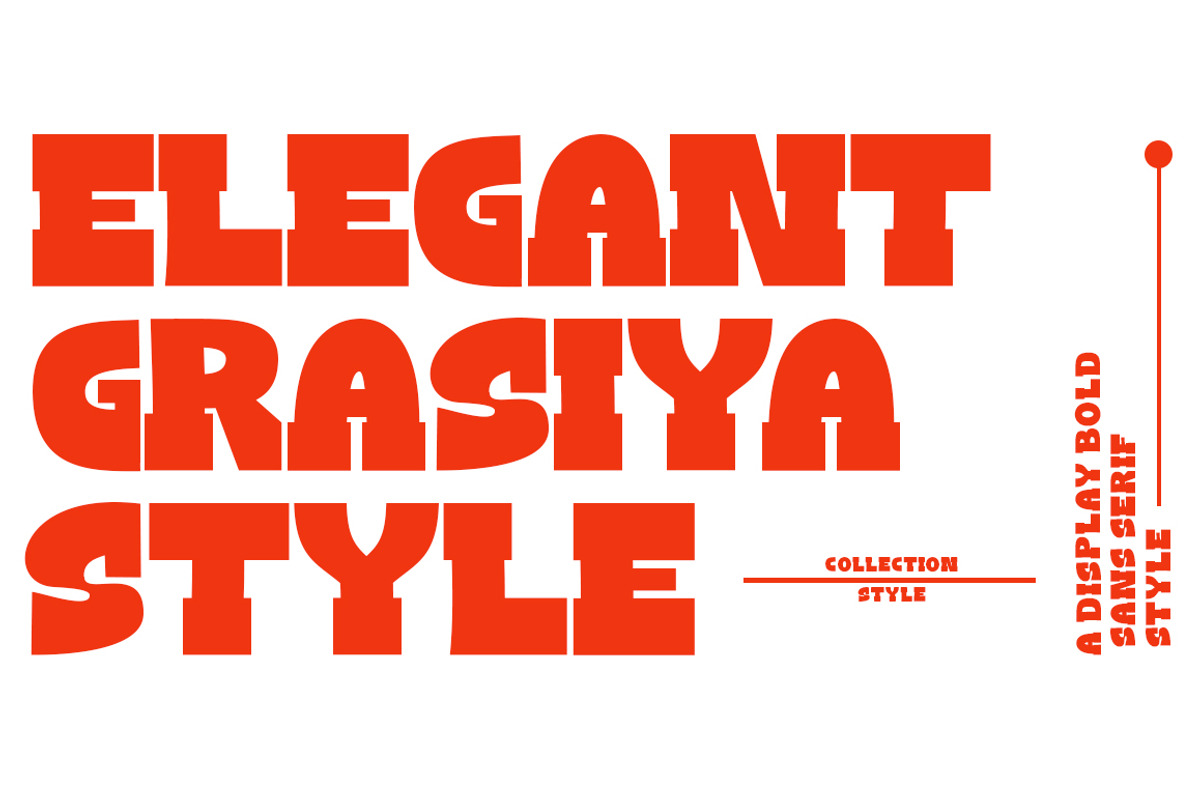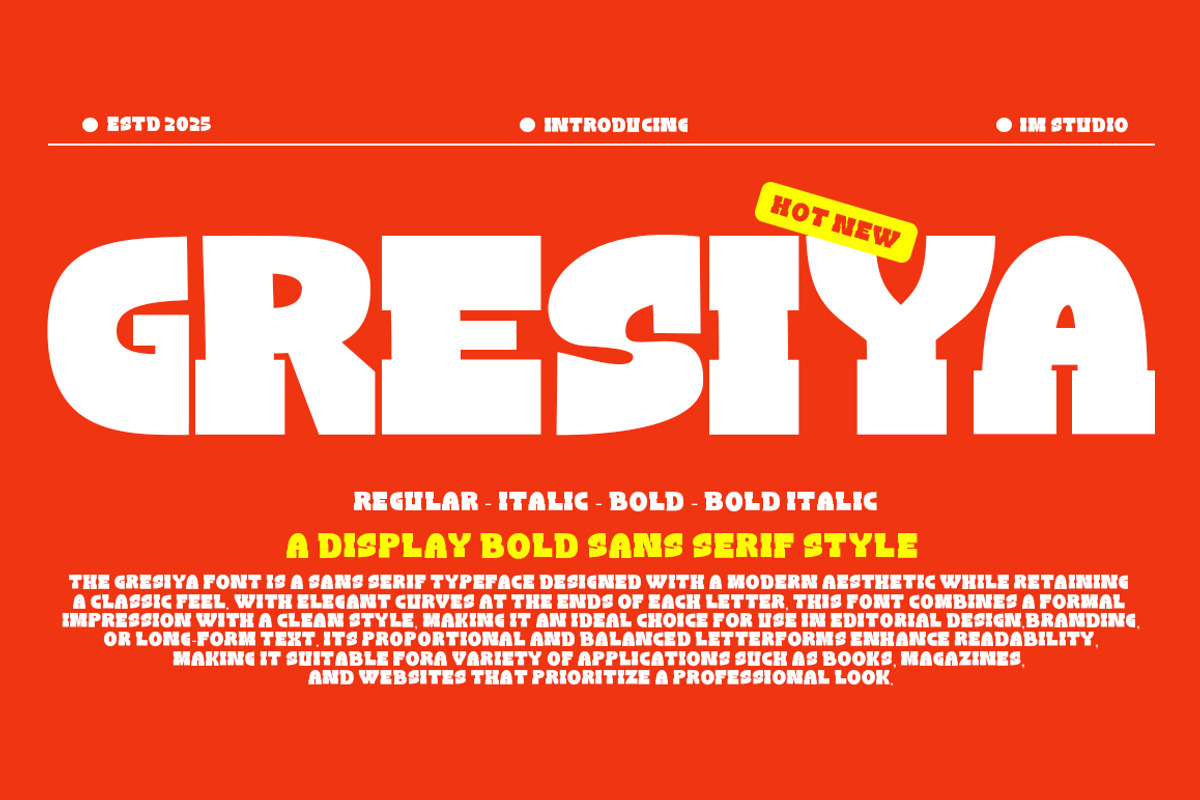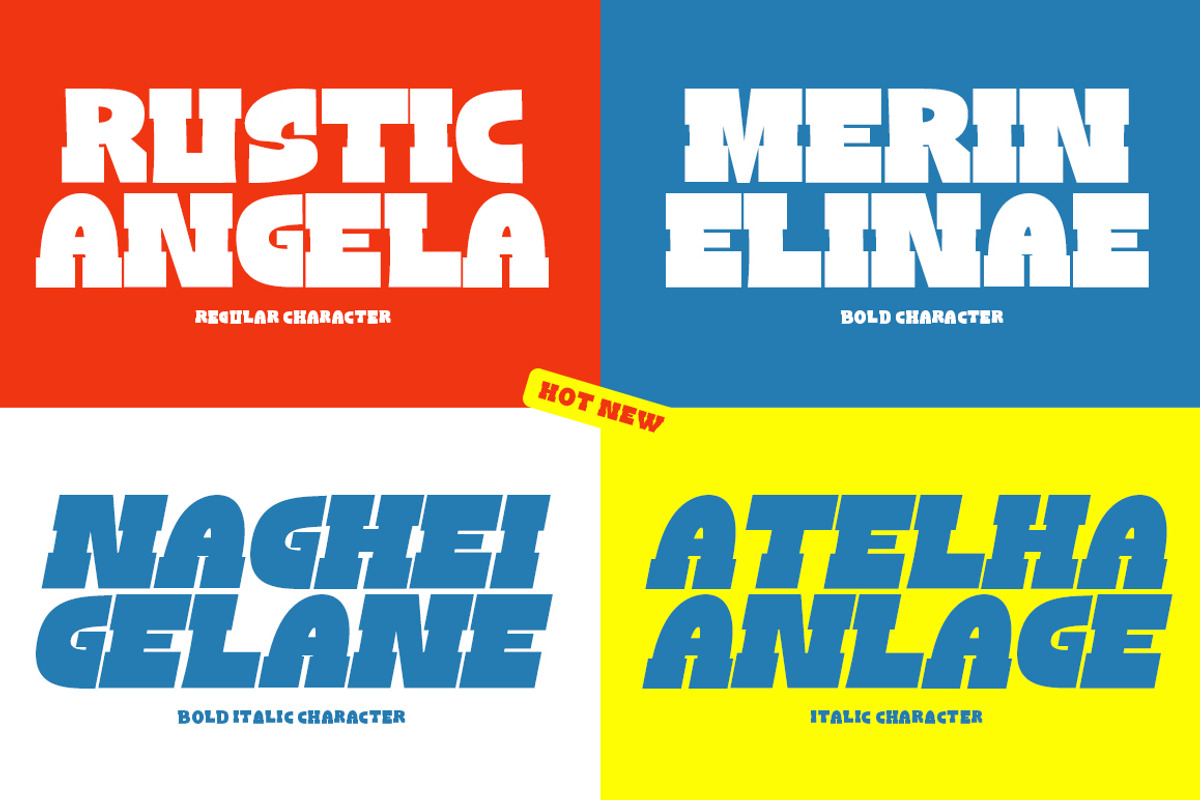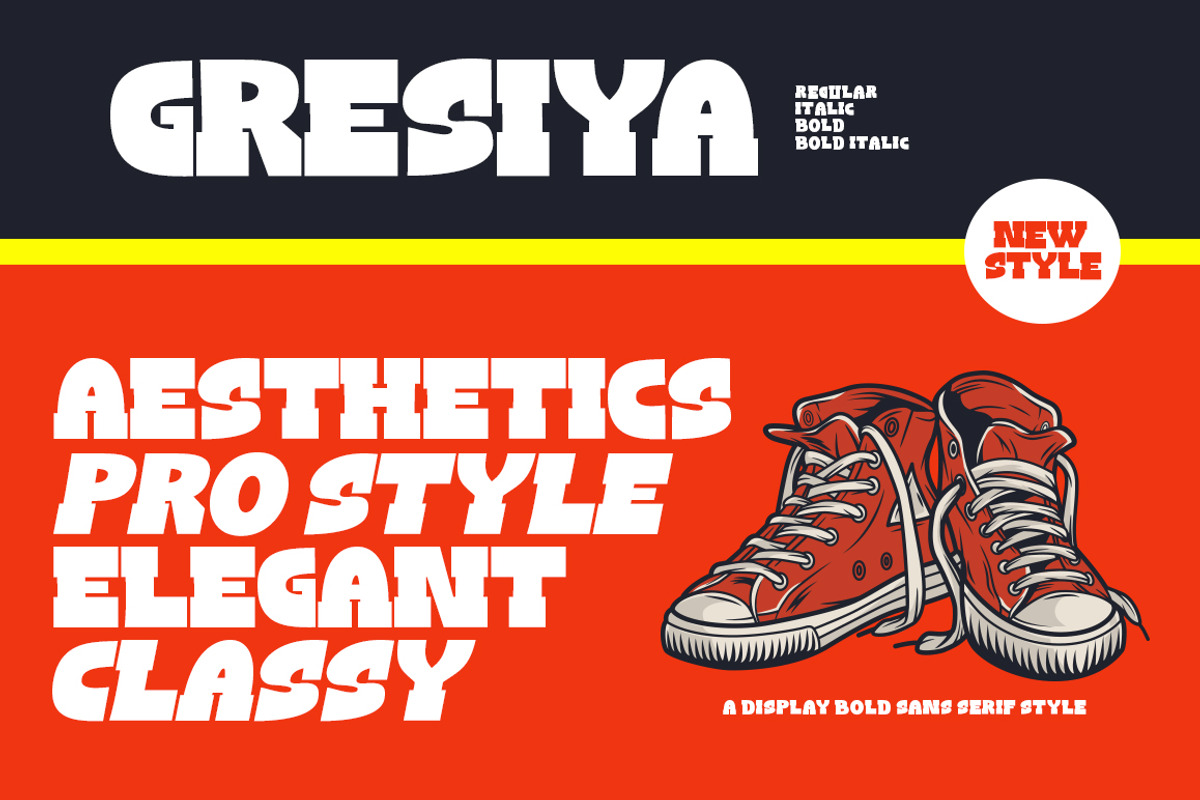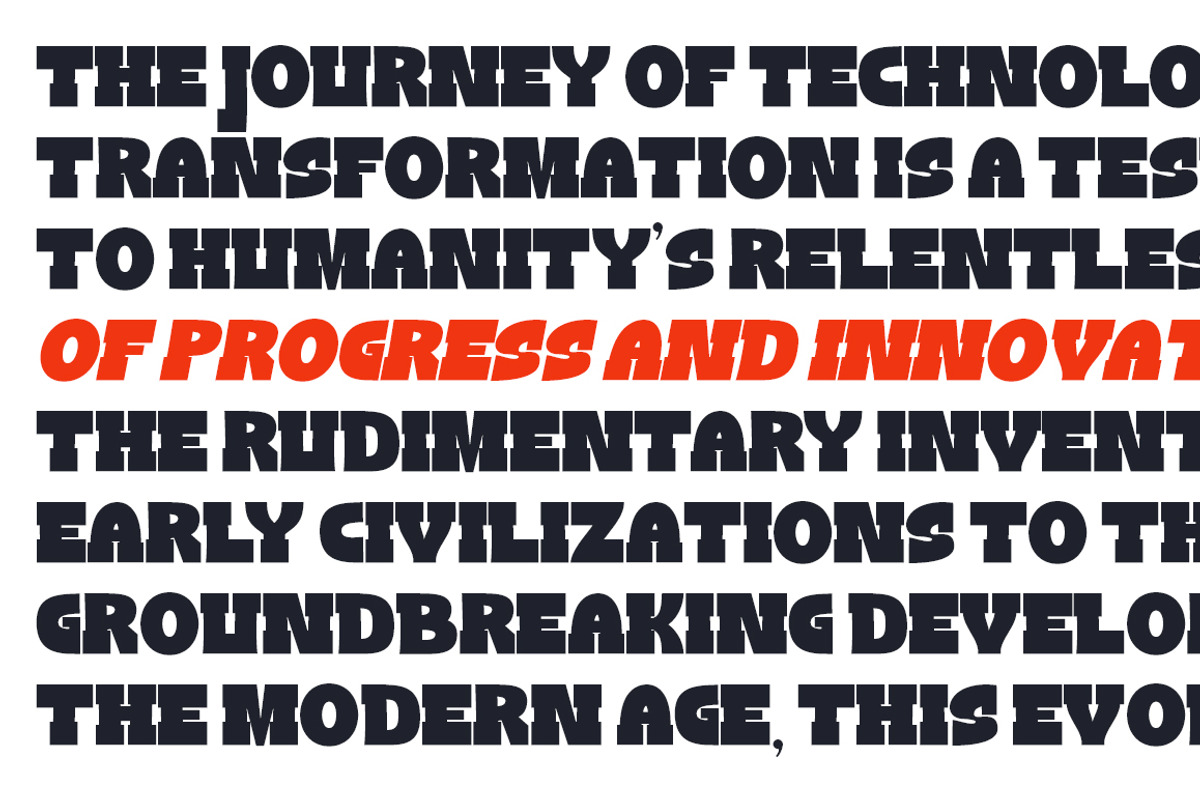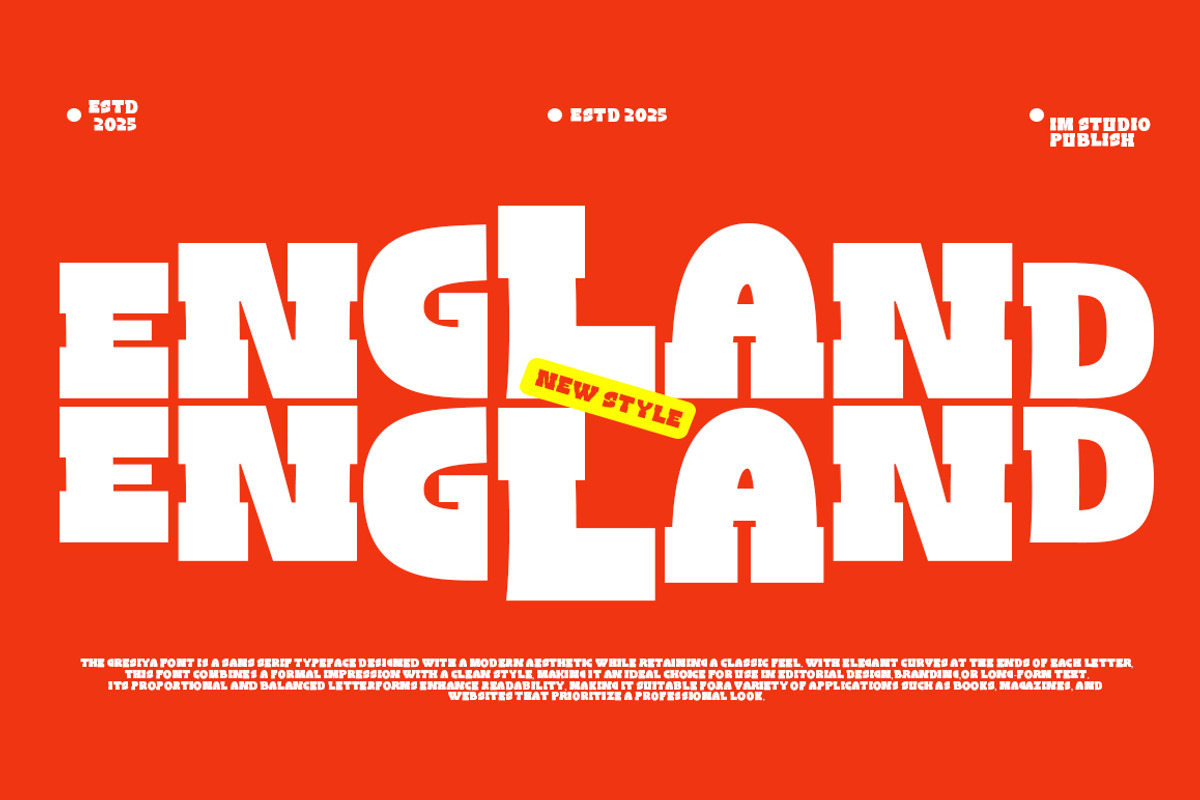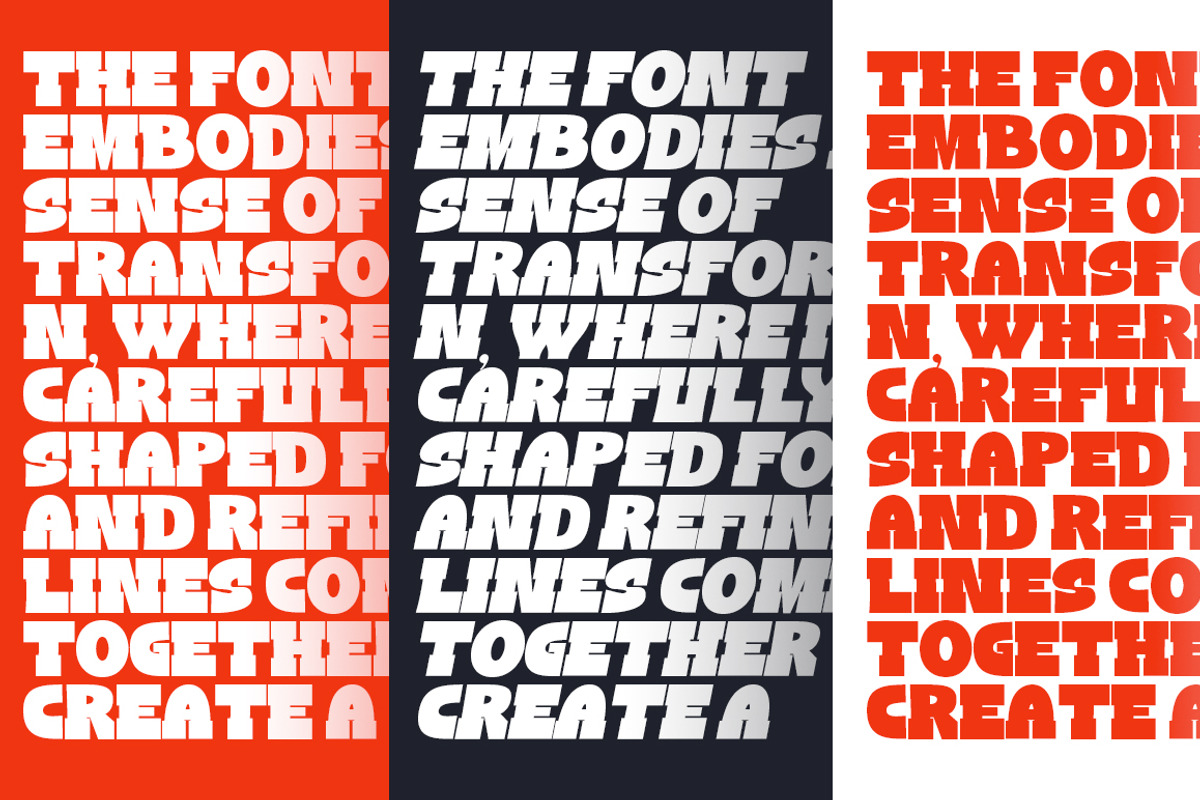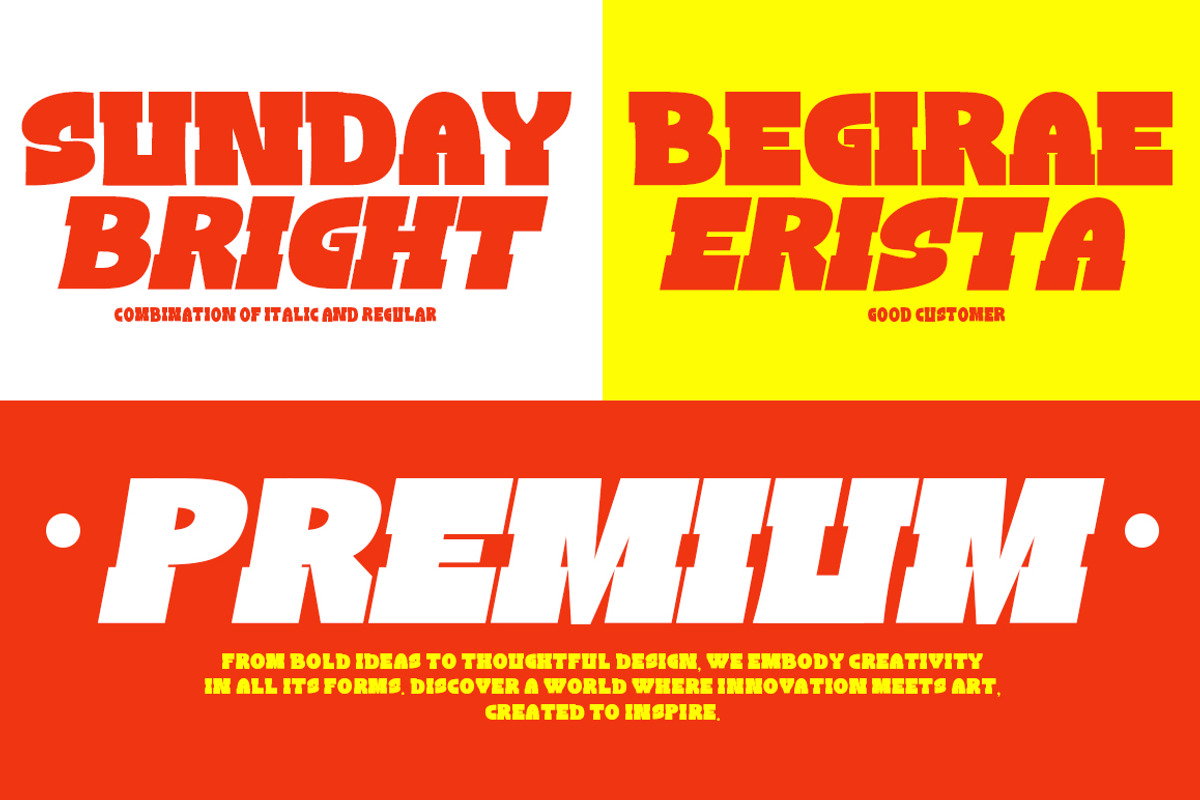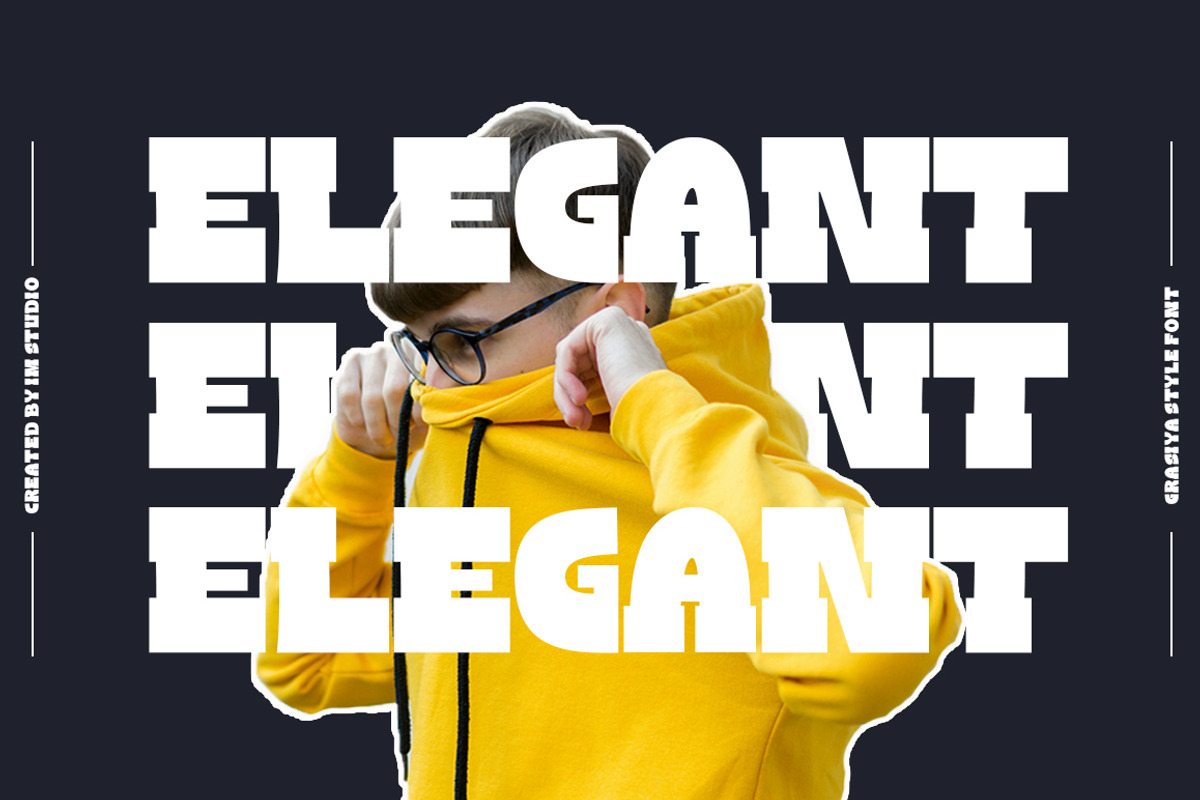
Gresiya ( 4 Style )
Gresiya is a graceful and enchanting typeface that seamlessly combines classic beauty with contemporary flair. Its design boasts elegantly crafted curves and refined letterforms, creating a harmonious flow that captivates the eye. I have enhanced Gresiya with a variety of meticulously designed ligatures and alternate characters, offering even more versatility and creative possibilities. These features add a sense of sophistication and artistry to any project, making it perfect for branding, wedding invitations, or editorial layouts. Gresiya exudes a timeless charm that elevates the visual appeal, and its delicate balance of modern elegance and vintage-inspired details makes it the perfect choice for those seeking a typeface that radiates both style and personalitye